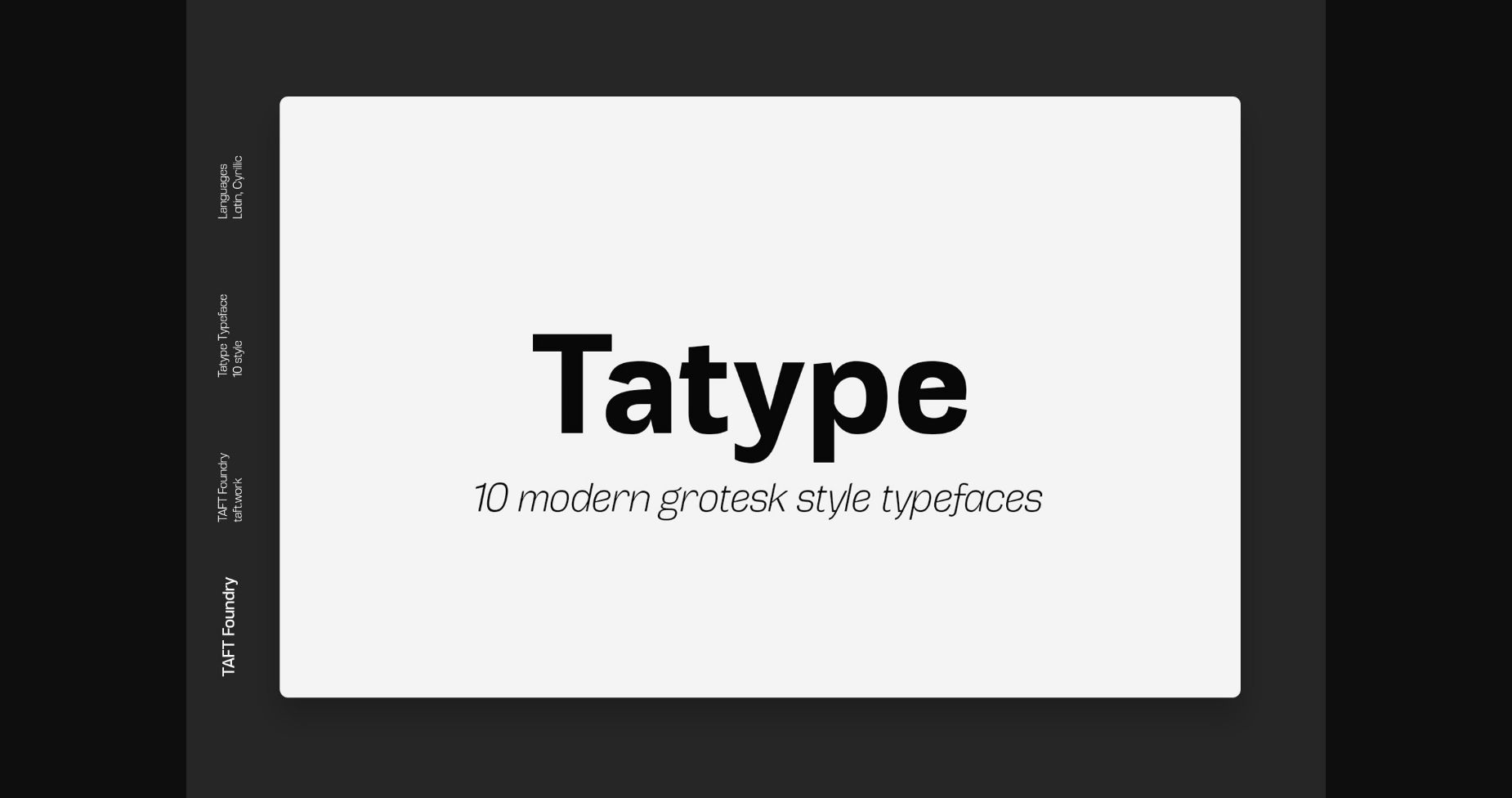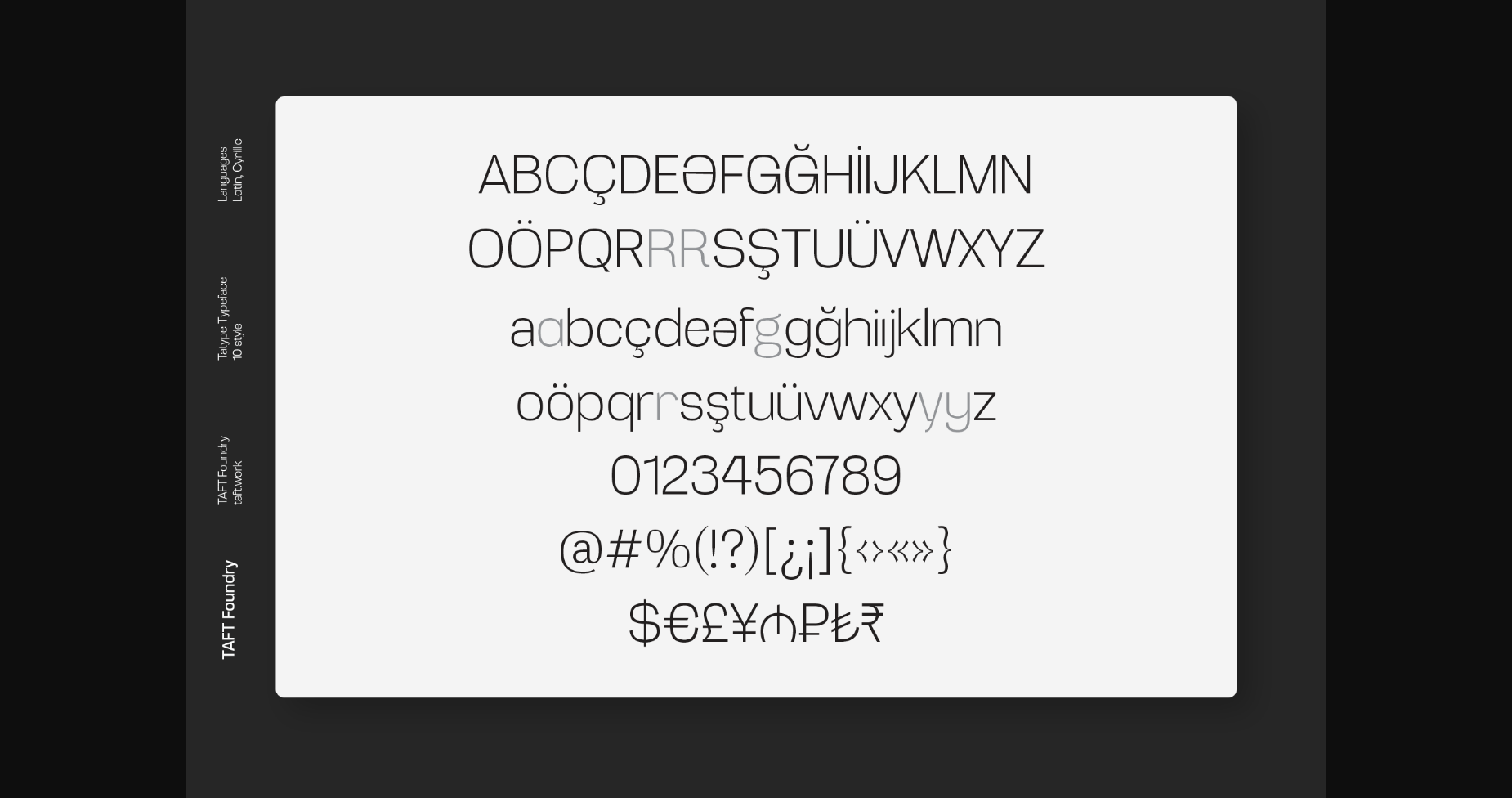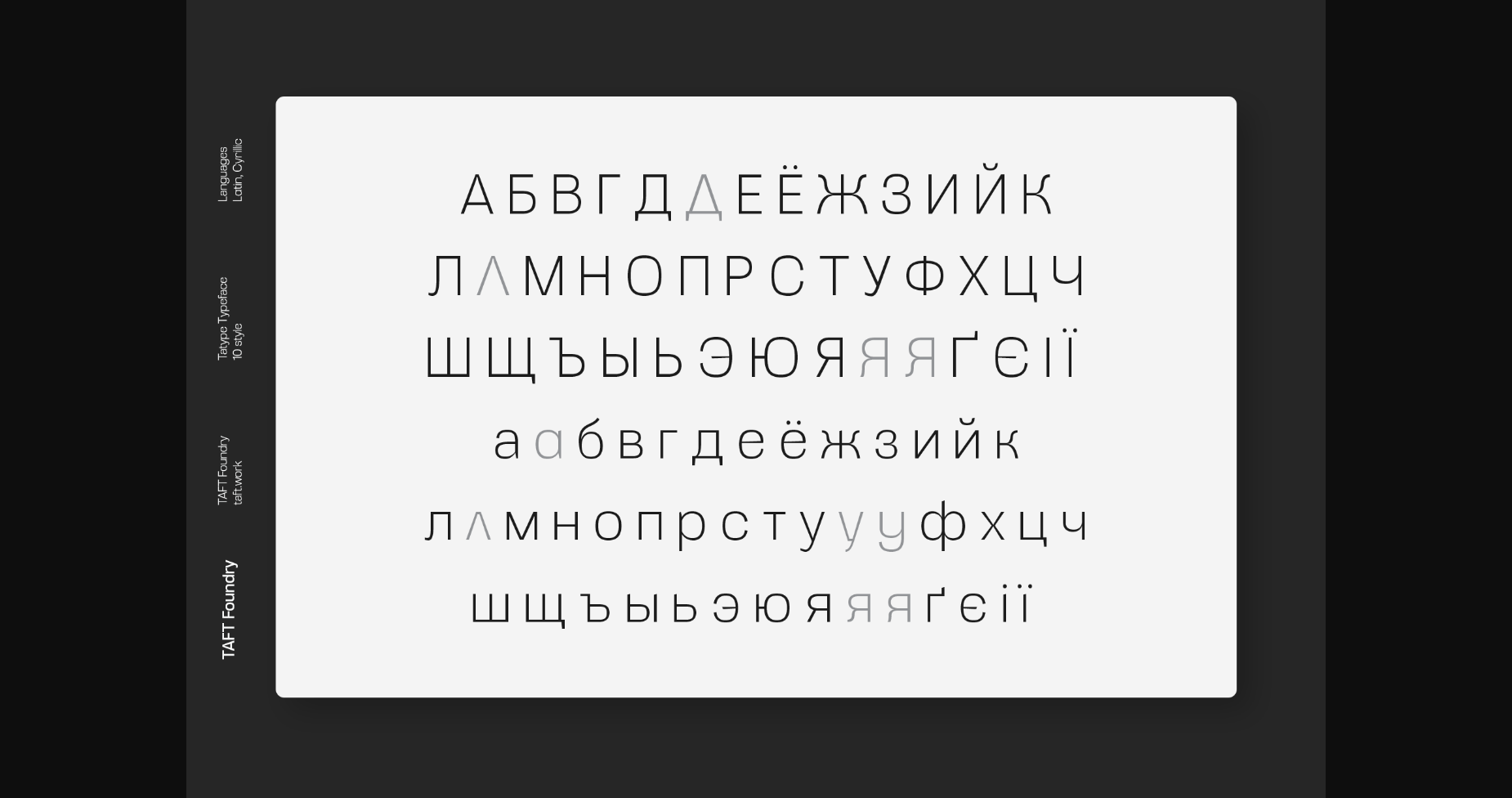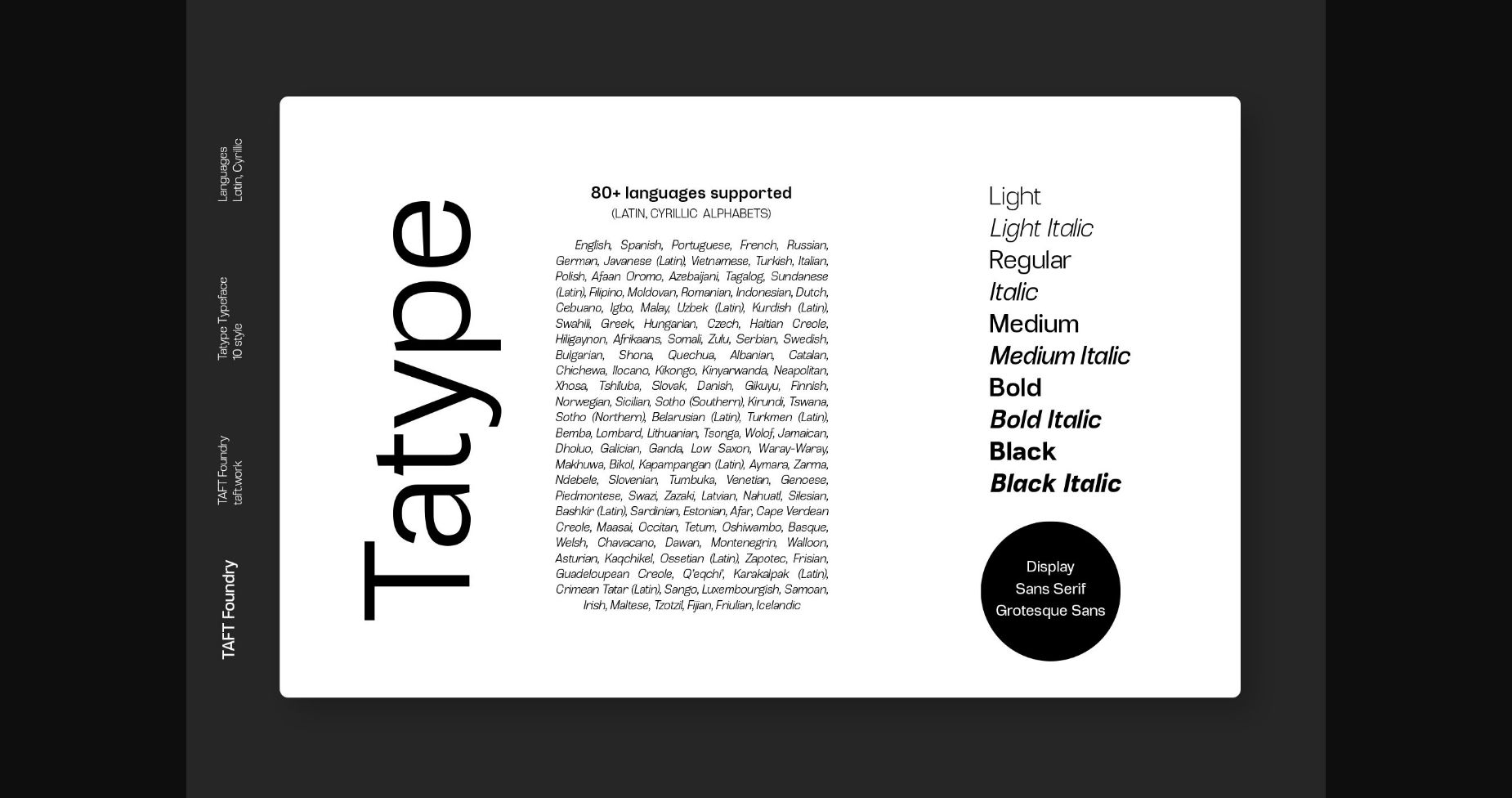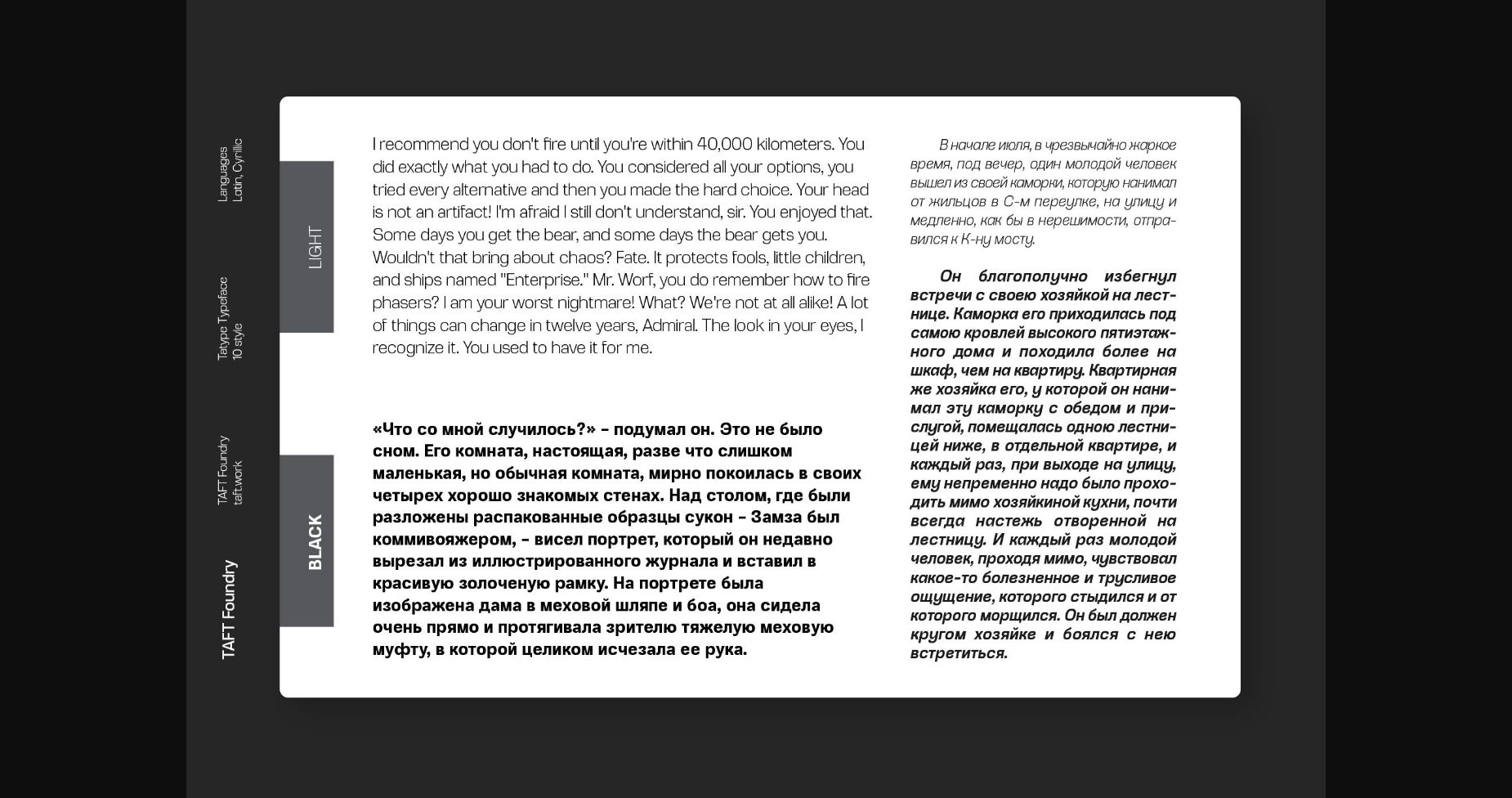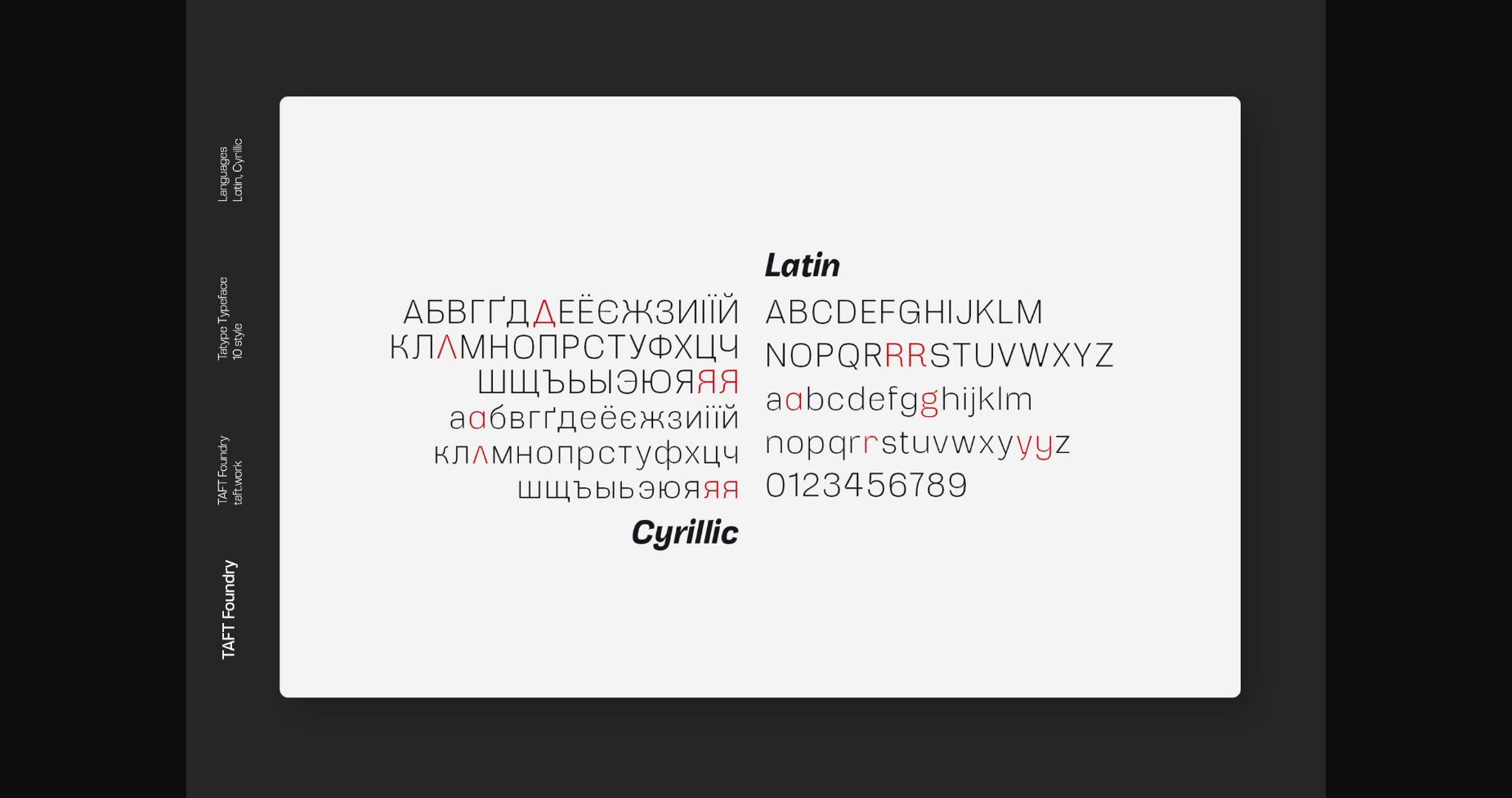
Tatype Font
About Tatype Font
Tatype is a minimalistic and tidy sans serif font. With solemn characters and a high-quality vibe, this font is sure to attract all eyes to your creations! Add it to logos, marketing materials, business cards, name tags, and so much more!